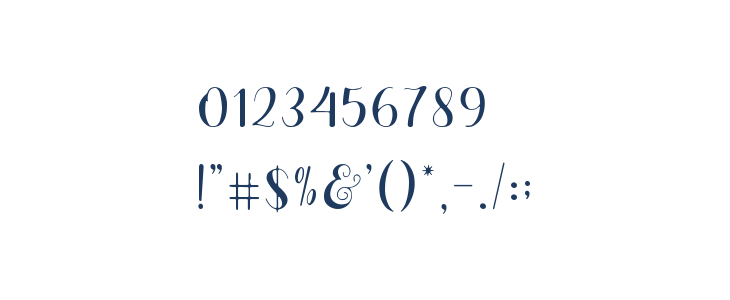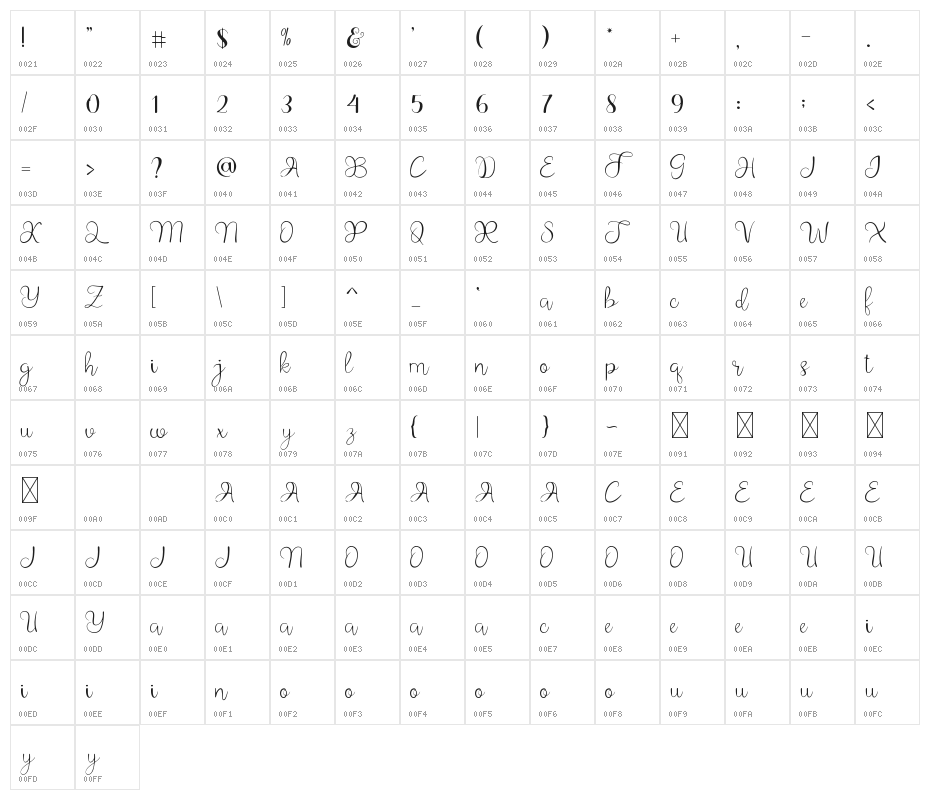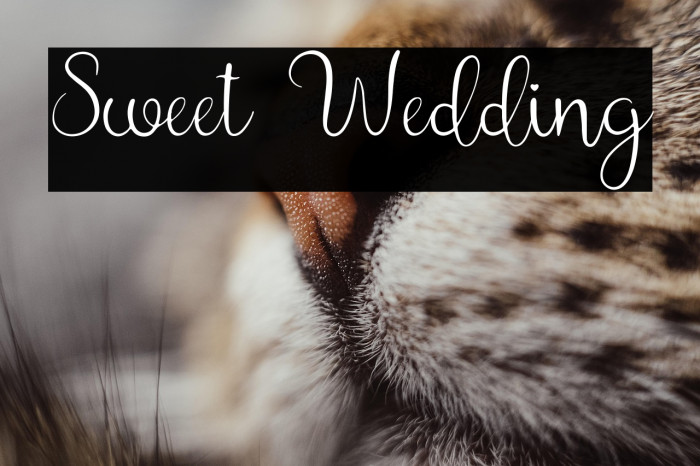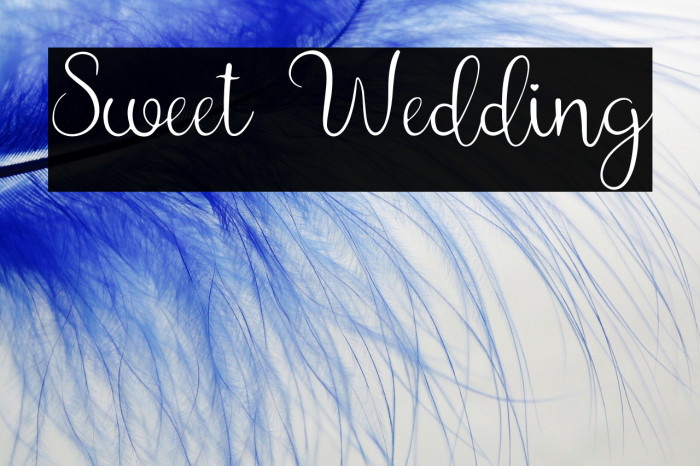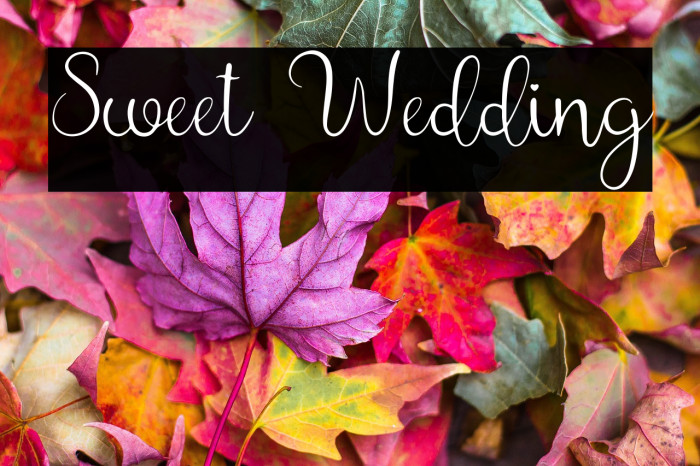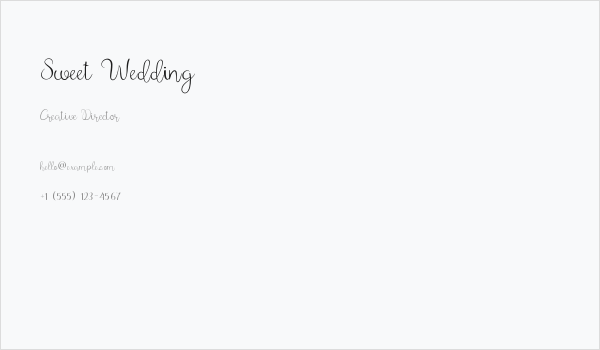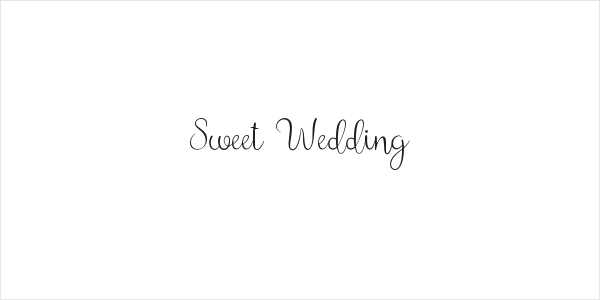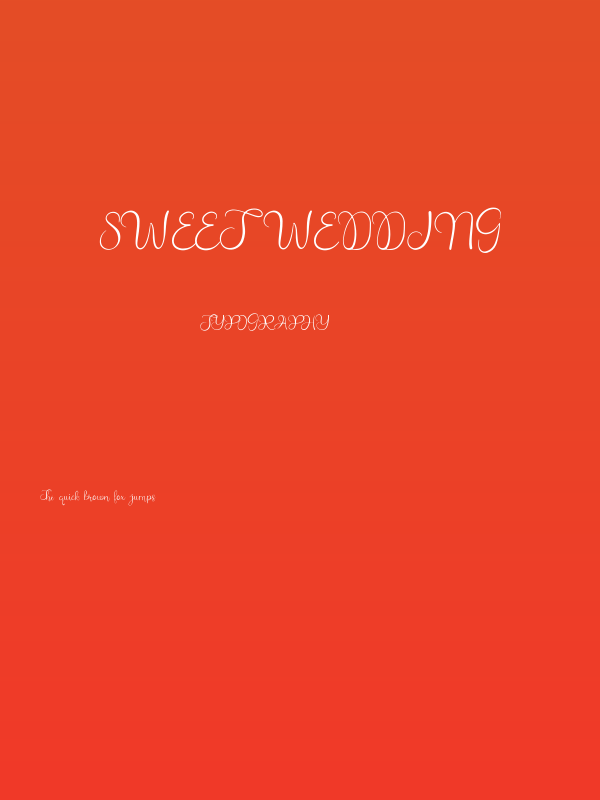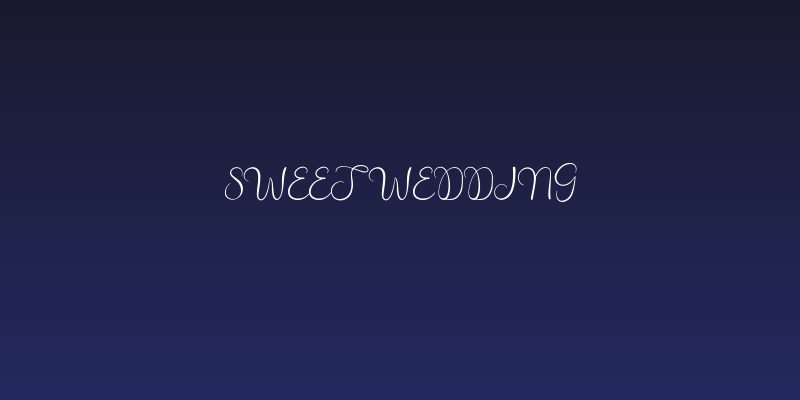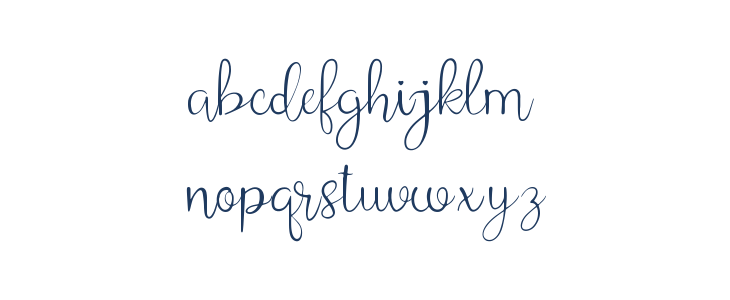
Sweet Wedding Font
Sweet Wedding Description
This elegant and flowing script font exudes a sense of romance and sophistication, making it ideal for formal occasions and special events. The characters are intricately designed with smooth, looping strokes that create a sense of movement and grace. The uppercase letters are particularly ornate, featuring elaborate swirls and flourishes that add a decorative touch. The lowercase letters maintain a consistent style, with gentle curves and a slightly slanted orientation that enhances the font's overall fluidity. The numerals and special characters are crafted with the same attention to detail, ensuring a cohesive look across all text elements. This font's delicate and artistic style makes it perfect for wedding invitations, greeting cards, and other projects that require a touch of elegance.
| Overall Style | Romantic, Elegant |
| Use Case | Invitations, Greeting cards, Elegant branding |
| Proposed Projects | Wedding invitations, greeting cards, event programs, elegant branding. |